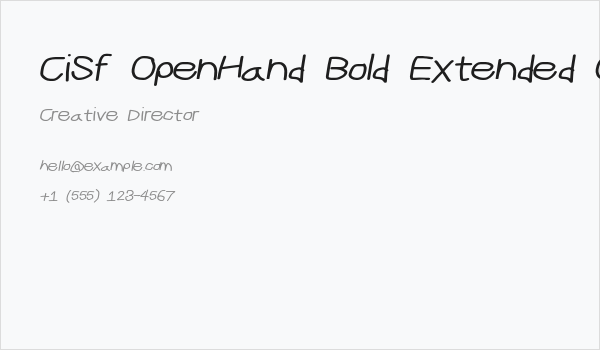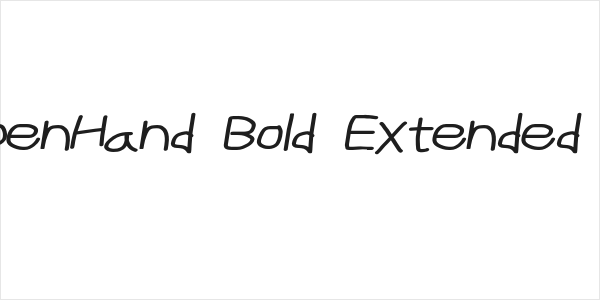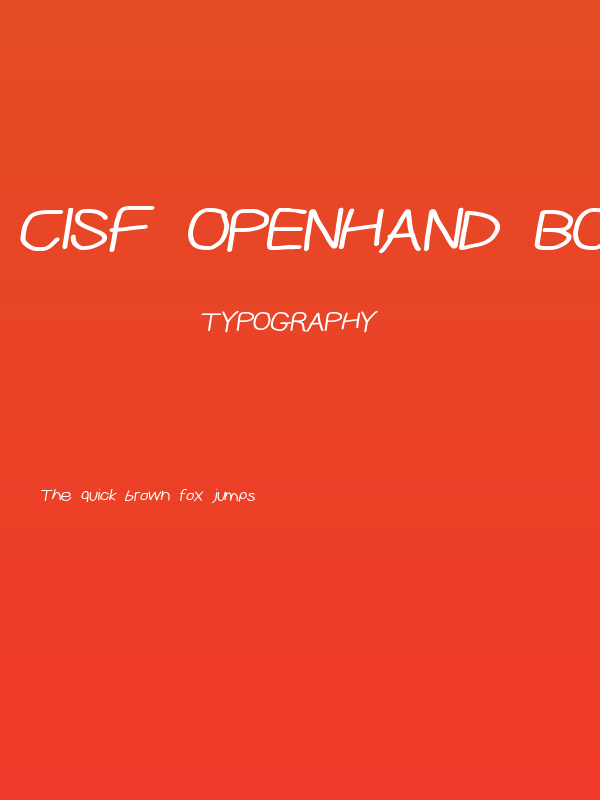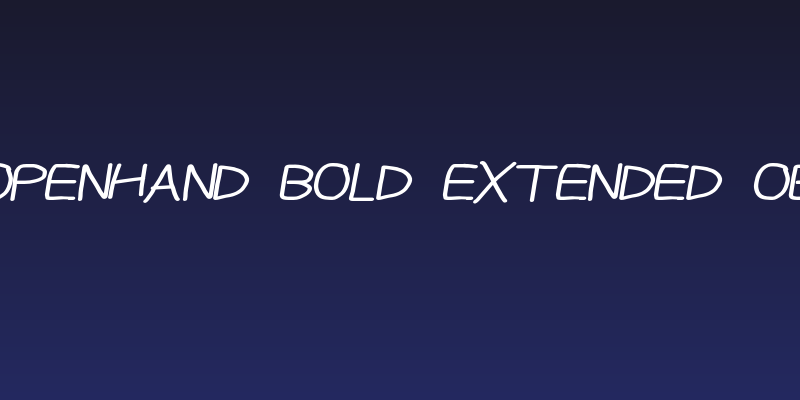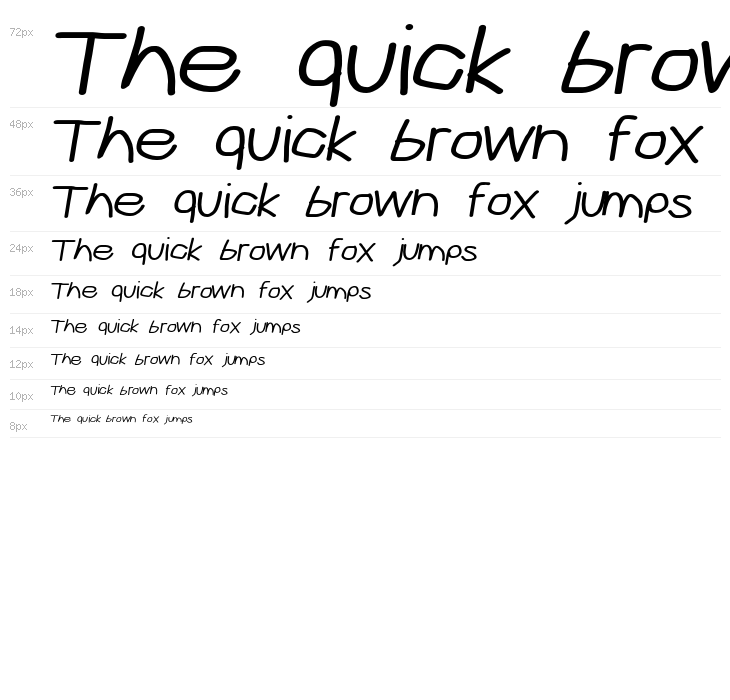
CiSf OpenHand Bold Extended Oblique Font
CiSf OpenHand Bold Extended Oblique Description
This font exhibits a playful and casual handwritten style, characterized by its bold and extended letterforms. The oblique angle adds a dynamic and informal touch, making it suitable for creative and expressive projects. The strokes are consistent in thickness, providing a uniform appearance across all characters. The uppercase and lowercase letters maintain a cohesive style, while the numerals and special characters complement the overall aesthetic. The font's design is approachable and friendly, making it ideal for projects that require a personal and informal tone.
| Proposed Projects | Ideal for greeting cards, children's books, playful branding, and informal invitations. |